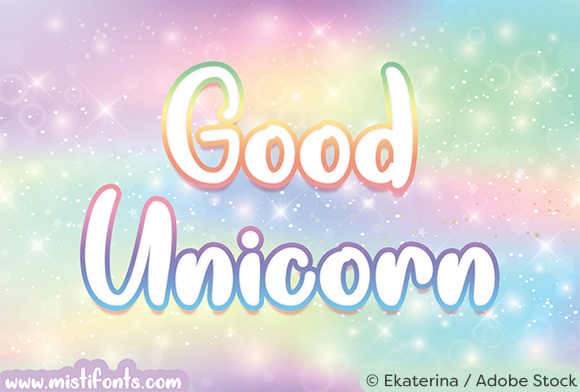
HomeScript FontsGood Unicorn Font Script Fonts Good Unicorn Font FacebookXPinterestWhatsApp About Good Unicorn Font Good Unicorn is a super fun typeface that will add a touch of magic to your projects! DOWNLOAD ON CREATIVE FABRICAThis font is sold and delivered by Creative Fabrica. Font Canyon may earn a commission if you buy through this link. People also explored Barn Dance JNL Font Nirmalla Font Summer Font Simple Farmhouse Font Brown Bella Canvas 3001 Mockup on White Joinks! Notebook Font Wonderful Font Martha Font 276 0 TagsGood Unicorn Font Previous articleCheshire FontNext articleThe Blendhes Font LEAVE A REPLY Cancel reply Comment: Please enter your comment! Name:* Please enter your name here Email:* You have entered an incorrect email address! Please enter your email address here Website: Save my name, email, and website in this browser for the next time I comment. Personal Use Free Urkelian Personal Use Free Read more about this font Bosque Font Personal Use Free Read more about this font Lixdu Personal Use Free Read more about this font Batik Classic Personal Use Free Read more about this font BLOG Best Fonts for YouTube Videos: Make Your Thumbnails Stand Out Best Fonts for YouTube Videos: Make Your Thumbnails Stand Out Choosing the right font can make a massive difference in how your YouTube videos perform.... Top 10 Handwritten Fonts That Elevate Your Designs 5 Fonts That Will Dominate Design Trends in 2026 Free Fonts Risk: Why Free Fonts Can Be Dangerous for Designers